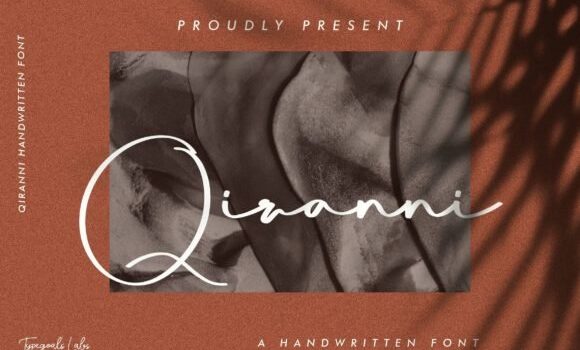
Qiranni Font – Free Download Introduction to Qiranni Font Qiranni is a delicate, elegant, and flowing handwritten font. 📸 Preview Gallery 6 images 📌 Product Name Qiranni Font 👤 Author typegoals 📂 Category Explore ⬇️ Download Qiranni Font FREE Free